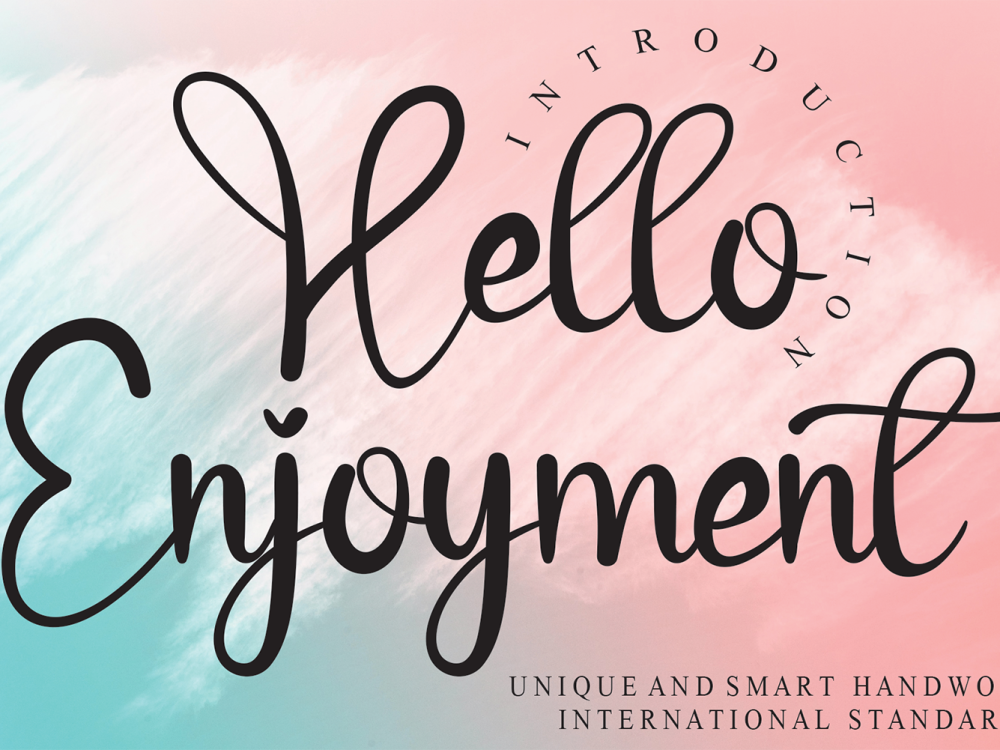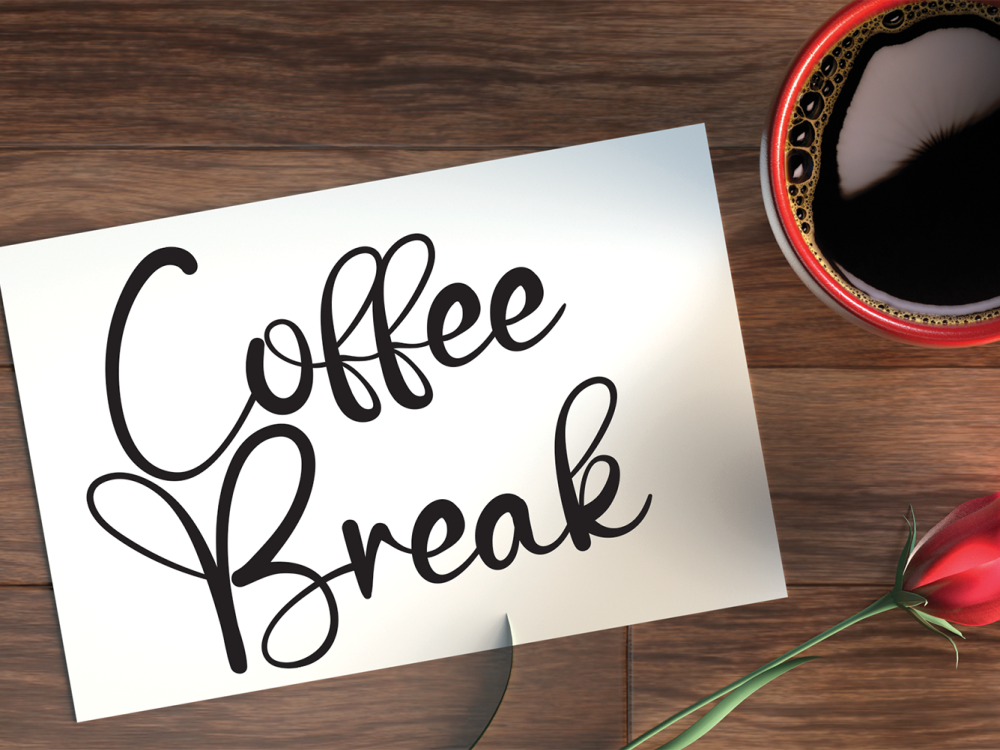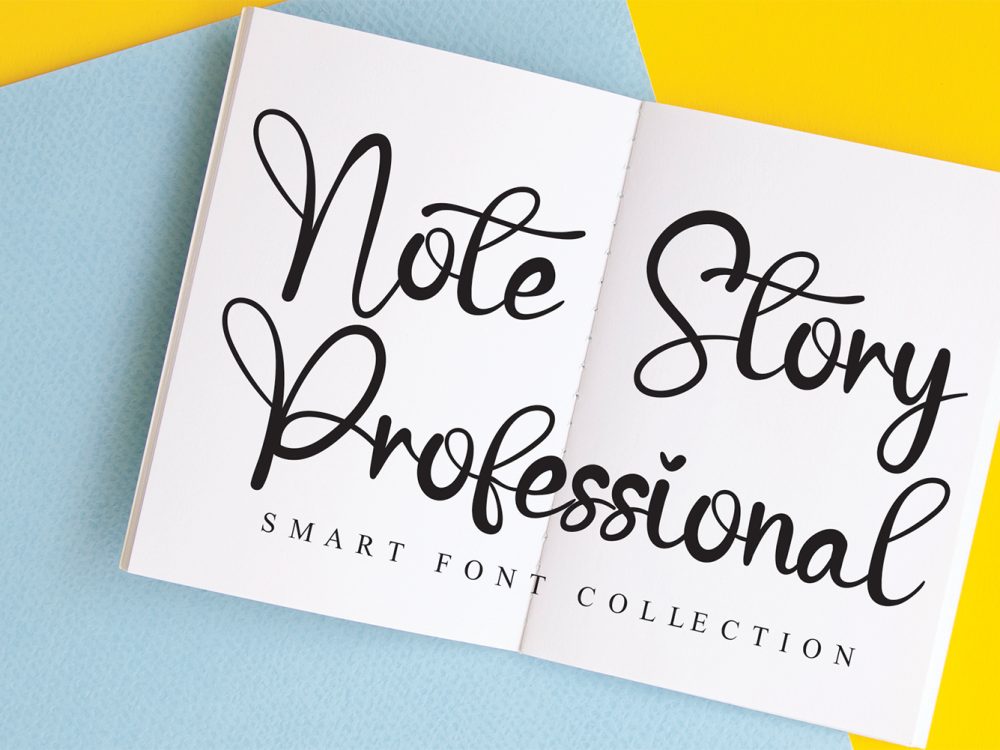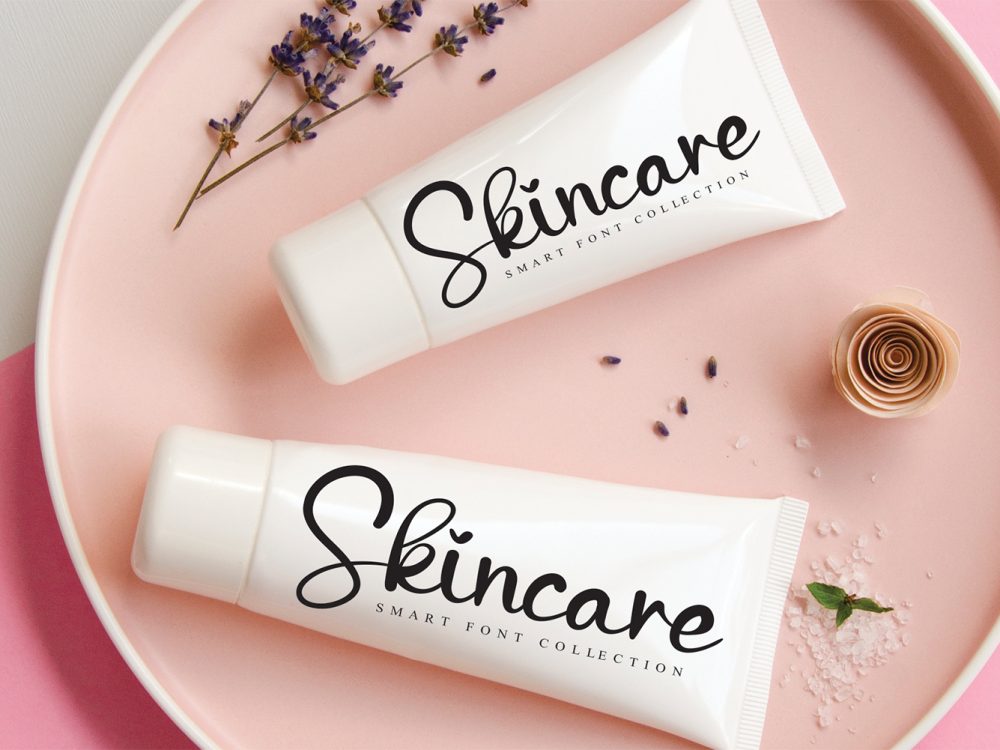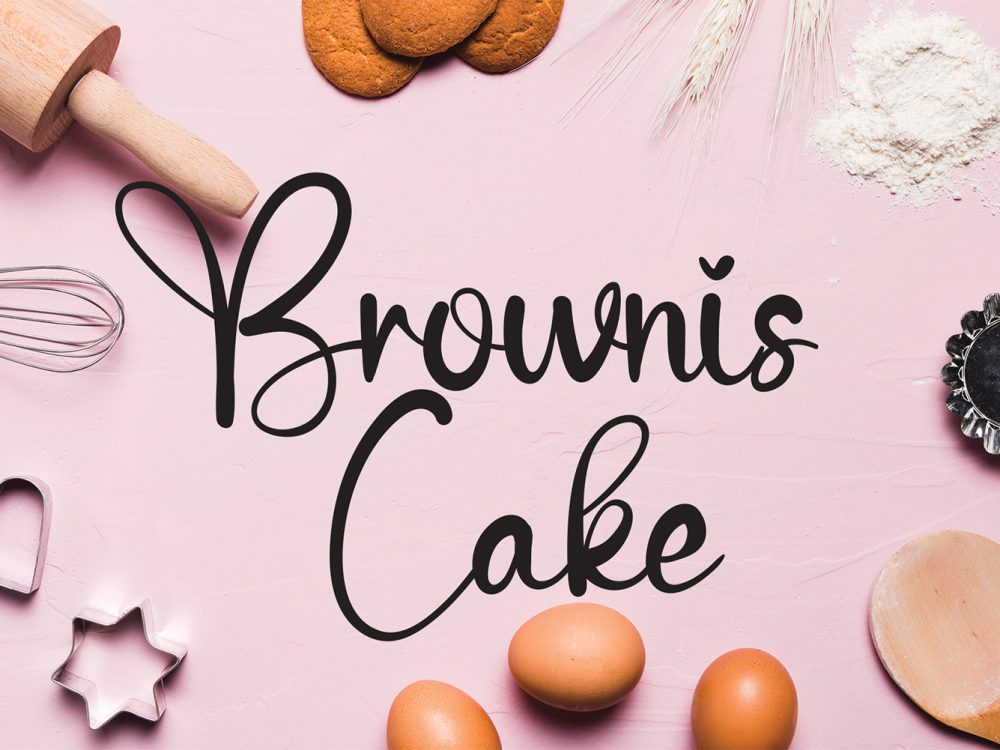
Hello Enjoyment Free Font
Greetings of Delight presents itself as a charming and tender Hello Enjoyment Free Font. With its delicate strokes and infectious joy, this font proves to be a perfect choice for crafting wedding invitations, heartfelt cards, or any creative endeavor that craves a romantic and personalized essence. If you like it don’t forget to check out the full version.